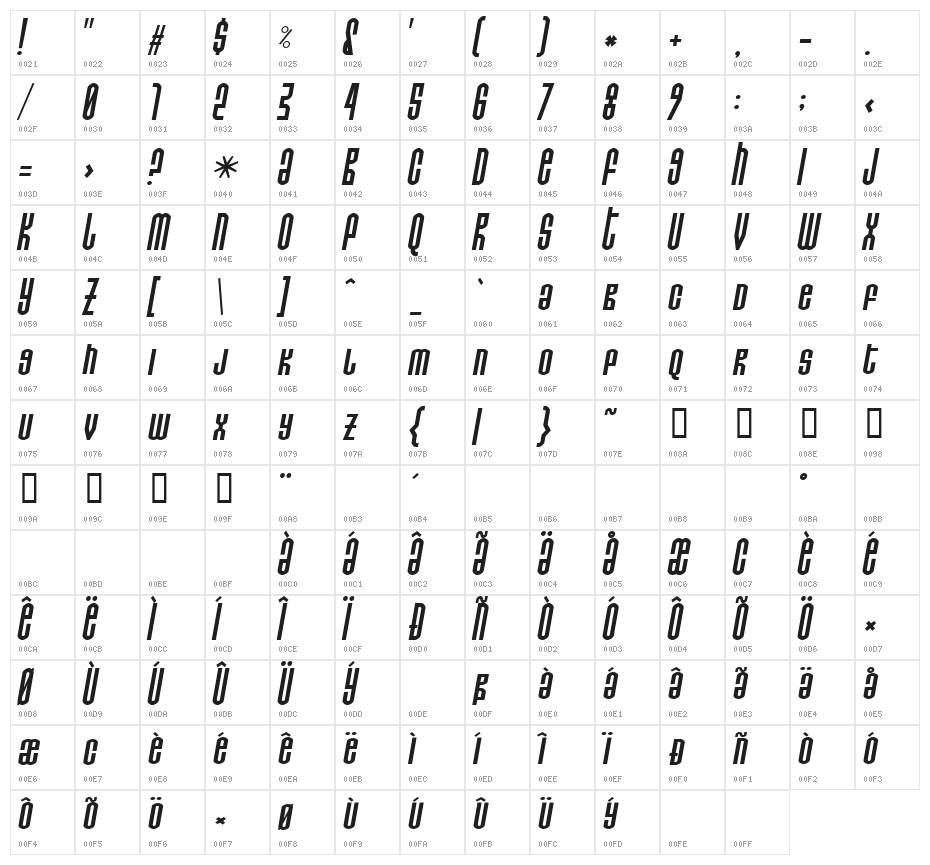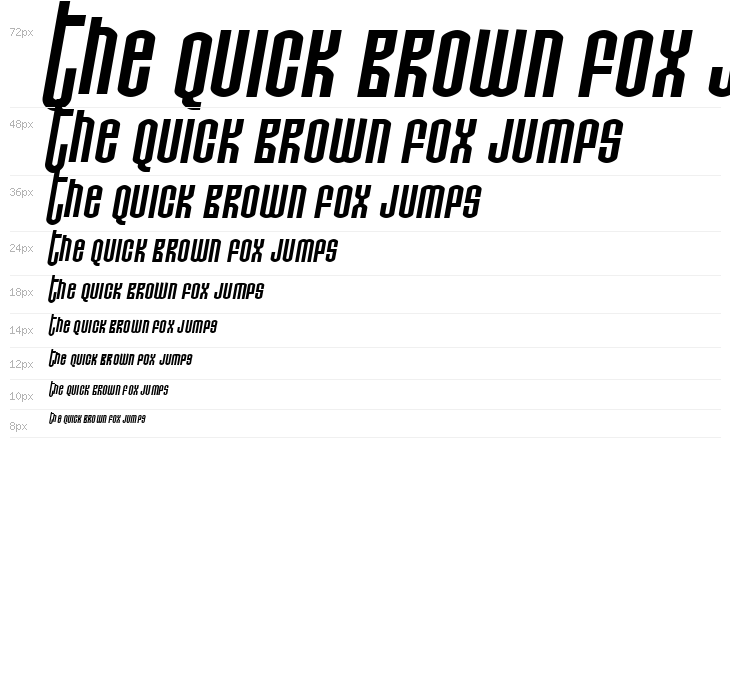
Do not eat this Italic Font
Do not eat this Italic Description
This font features a bold, italicized style with a strong, dynamic presence. The characters are elongated and slightly condensed, giving a sleek and modern appearance. The strokes are consistent in thickness, providing a uniform look across all characters. The uppercase and lowercase letters maintain a cohesive design, with a slight slant that enhances the italic effect. Numbers and special characters are designed to match the overall aesthetic, ensuring a seamless integration in any text. This font's boldness and italic style make it ideal for attention-grabbing headlines or impactful logos.
| Proposed Projects | Ideal for headlines, logos, posters, and branding materials that require a strong visual impact. |